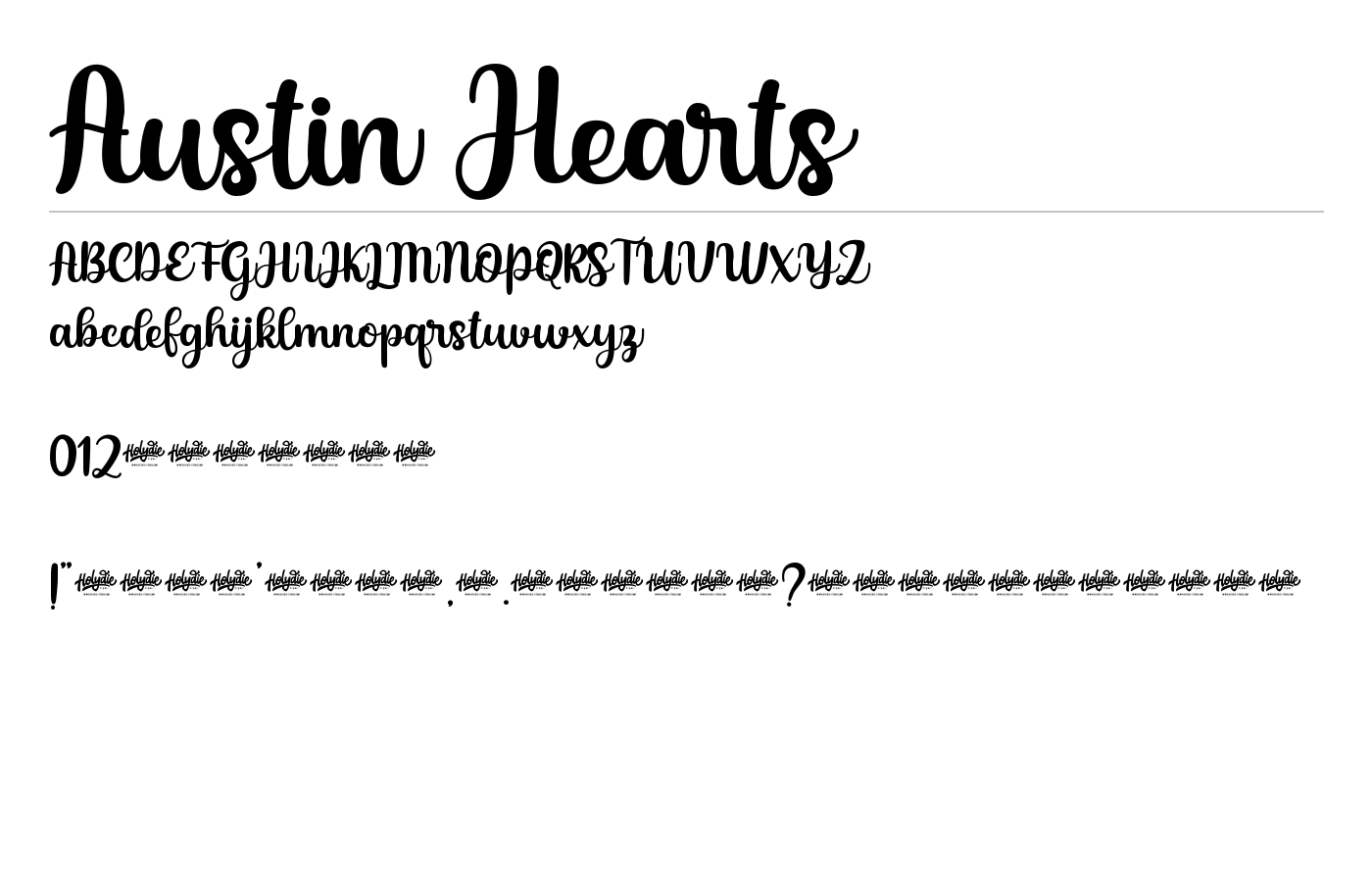
Austin Hearts is a playful and charming script font with smooth, rounded strokes and a warm, friendly feel. Its upright, connected letterforms and varying stroke thicknesses make it ideal for feminine branding, invitations, and casual headlines where a touch of personality and elegance is desired. This font lends itself well to designs that want to evoke cheerfulness and approachability.
Austin Hearts Font
About Austin Hearts Font
| Font family | Austin Hearts Font |
| Designer | Yugo Priyat Moko ( Holydie Studio ) |